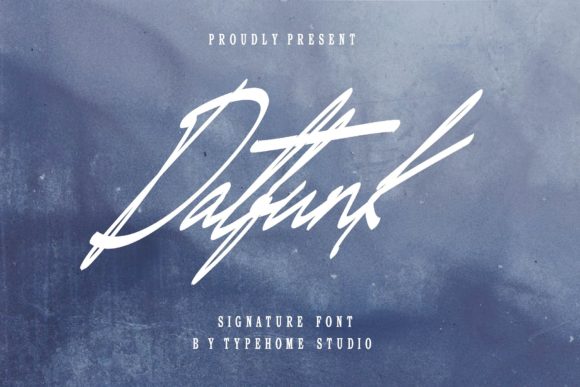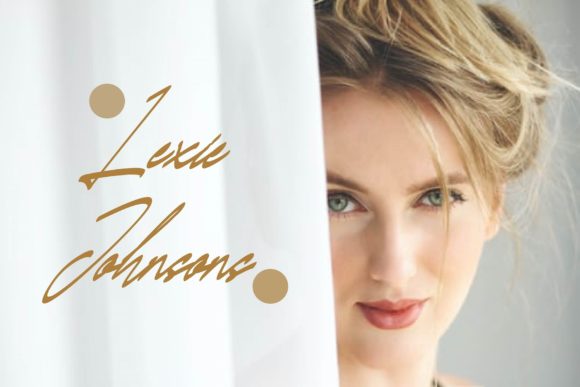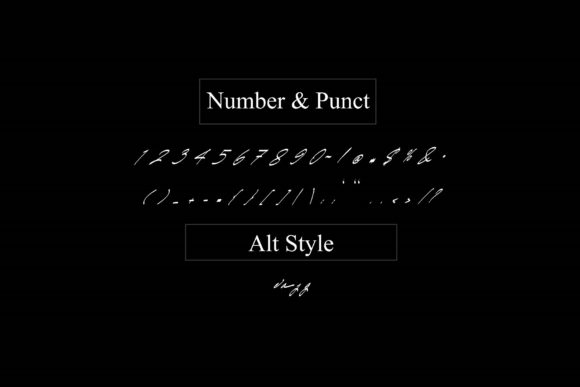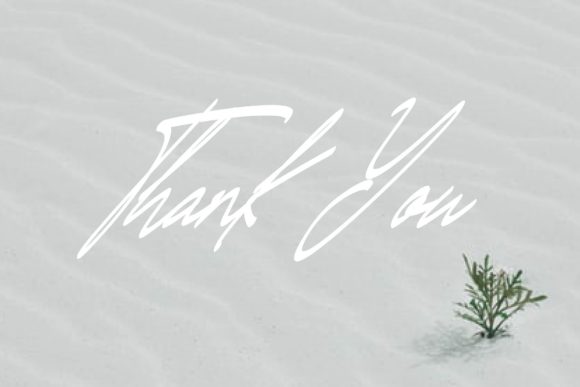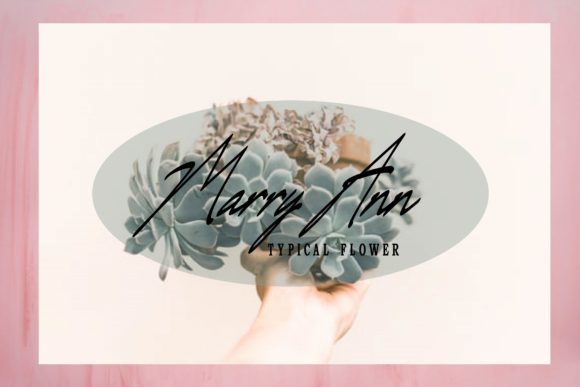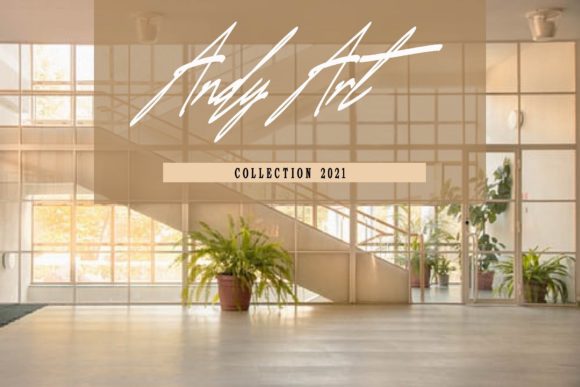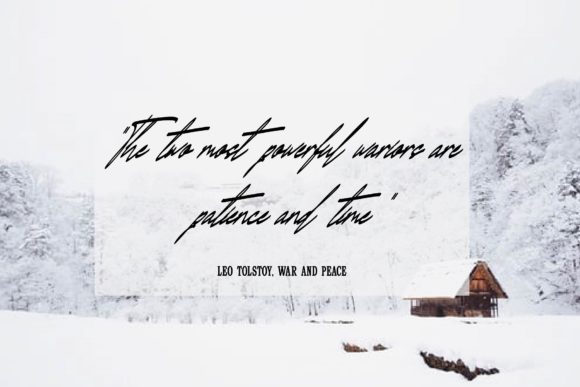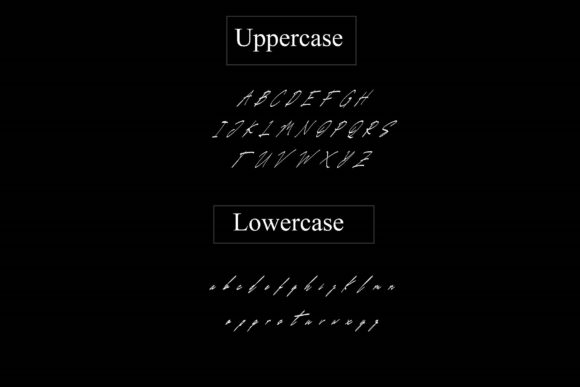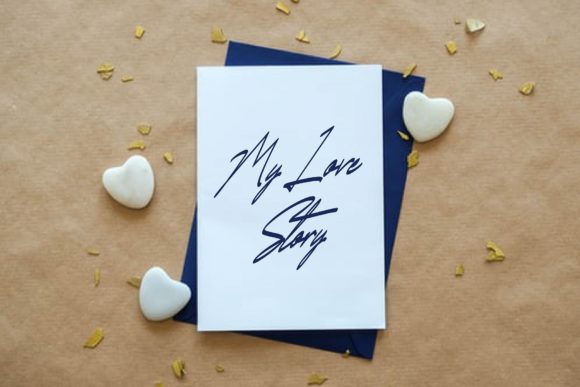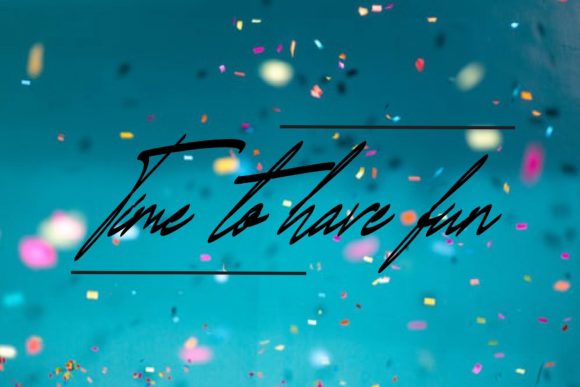
Datfunk Font
About Datfunk Font
Datfunk is a whimsical and genuine handwritten font. Expertly designed to make your creation look out of this world, this font will look gorgeous on a variety of ideas.